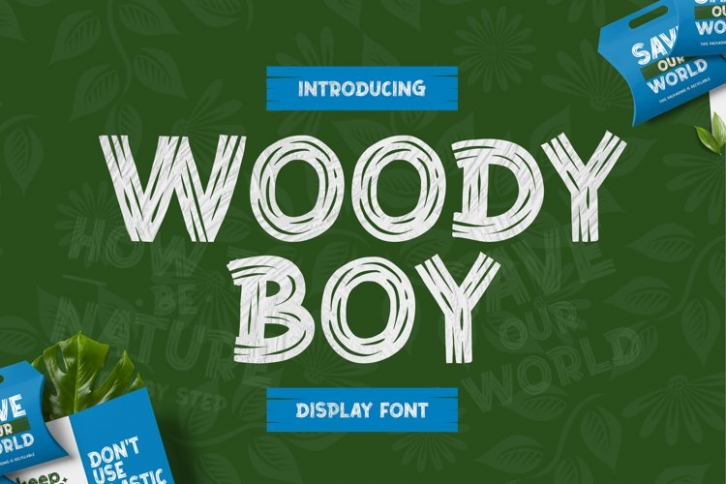
Woody Boy is a beautiful font that was designed by plusstore. It's a great choice for designers and creatives who need such a font. It was released on June 28, 2021 and the file size is 8.14 MB. Woody Boy may give a more youthful, expressive and casual look to your project. It is a very beautiful, refined, elegant, and high-quality font.